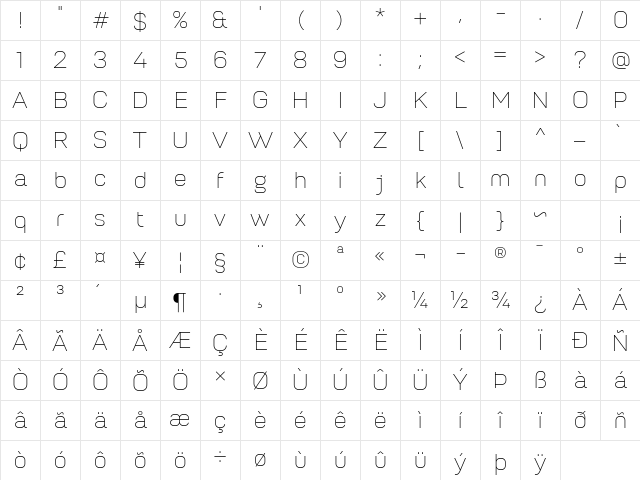
Petrov Sans ExtraLight Regular
Foundry: Fontfabric LLC
Designer: Asen Petrov, Svet Simov, Stefan Yatanski
Design Context for Petrov Sans ExtraLight
Petrov Sans ExtraLight is a composed and adaptable typeface that performs quietly and consistently across a wide range of design contexts. Its slender proportions lend an understated elegance to any composition.